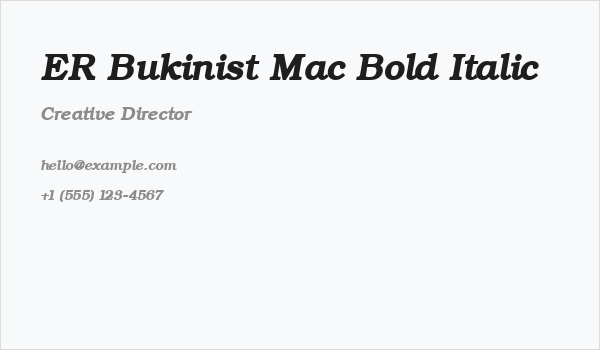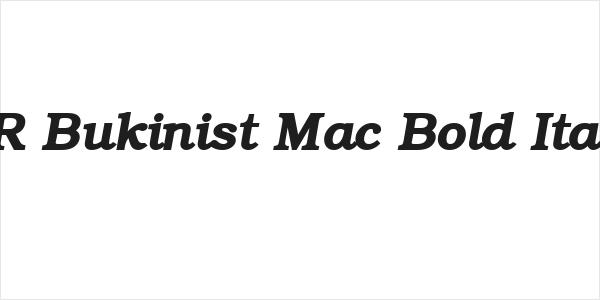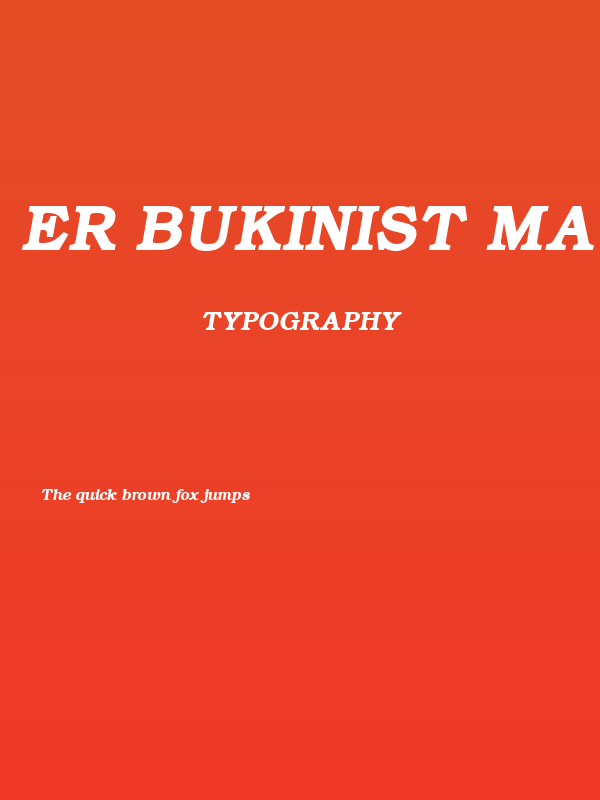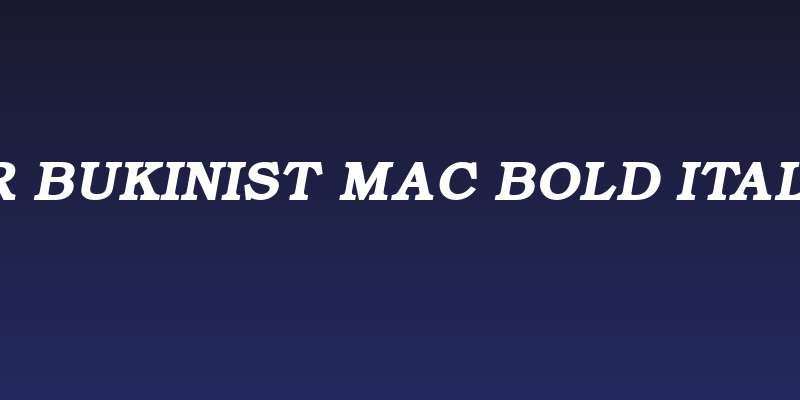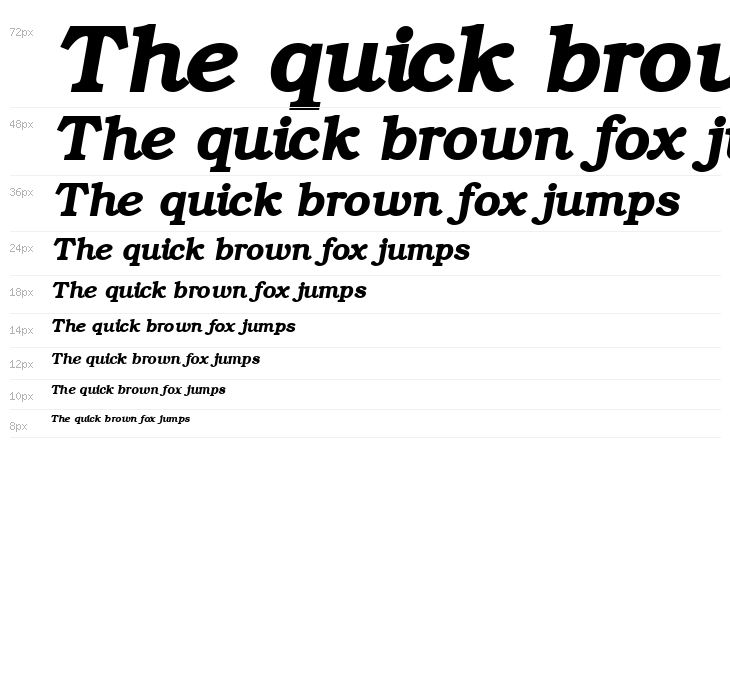
ER Bukinist Mac Bold Italic Font
ER Bukinist Mac Bold Italic Description
This font features a bold and italicized style, combining a classic serif structure with a modern twist. The letters have a pronounced slant, giving a sense of movement and dynamism. The serifs are thick and prominent, adding a touch of elegance and tradition. The overall appearance is robust, making it suitable for impactful headlines and titles. The numbers and special characters maintain the same bold and italicized characteristics, ensuring consistency across all elements. The font's design is both authoritative and stylish, making it versatile for various applications.